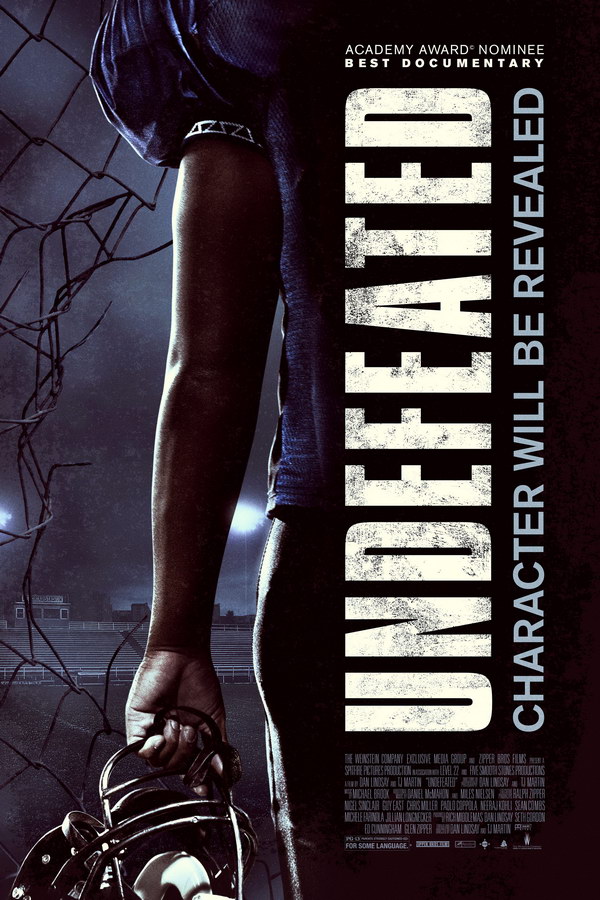
Undefeated Font
DramaUndefeated is an inspiring sports drama that follows the journey of an underdog high school football team as they overcome personal struggles and transform into champions.
The movie poster for "Undefeated" features a bold font resembling Impact for the title, while the subtitle "Character Will Be Revealed" is set in Akzidenz Grotesk Medium, both of which are widely-used commercial fonts. Further details are available here and here respectively.